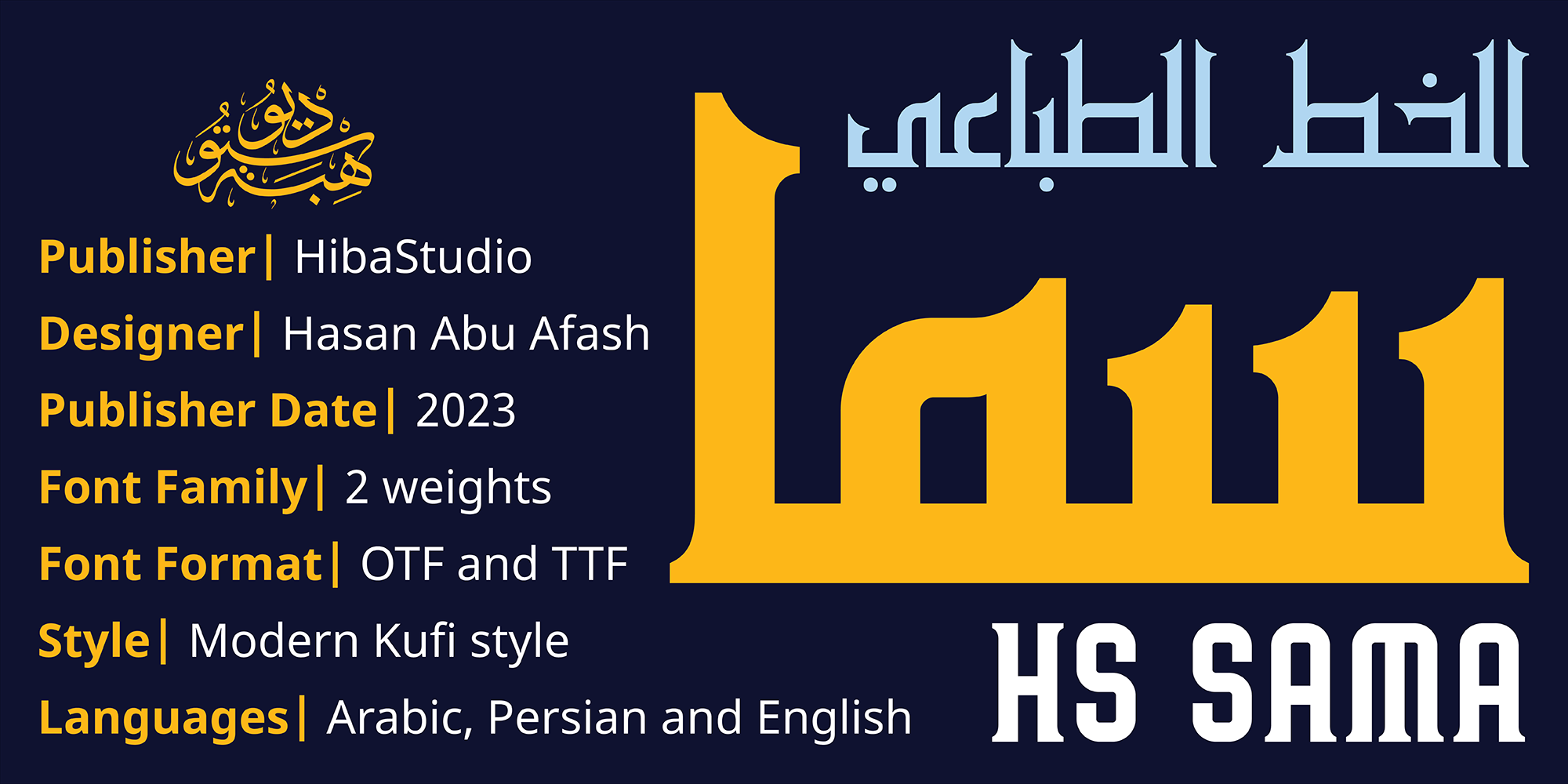
HS Sama Font Free Download is a clean and stylish sans-serif typeface perfect for branding, web design, editorial layouts, advertising, and user interfaces. Its modern and minimalist style ensures high readability and a sleek appearance.
What makes this font so exciting is its versatile design that adapts beautifully across various digital and print media. HS Sama Font offers a fresh, contemporary look that elevates your projects with elegance and clarity.
HS Sama Font includes multiple weights such as Light, Regular, Medium, and Bold, allowing designers to create diverse and dynamic typographic hierarchies.